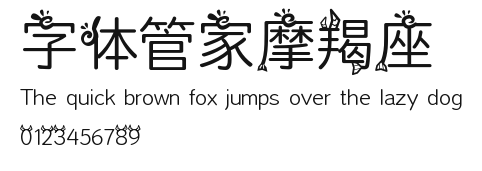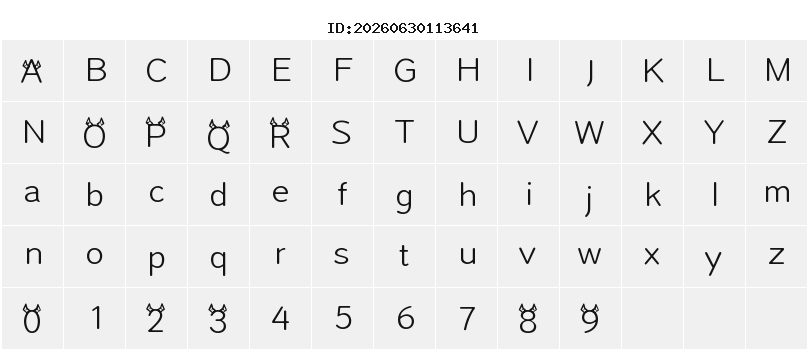
字体管家摩羯座 Preview
• Font Name: 字体管家摩羯座
• Description: AaMoJiezuo is a fantastic font with excellent features designed for user interfaces and electronic communications.
About 字体管家摩羯座.ttf
字体管家摩羯座.ttf is a modern, elegant sans-serif font designed for ultimate readability and visual harmony. Perfect for branding, headlines, web design, and print materials.